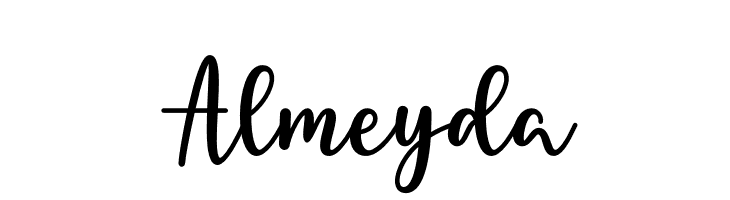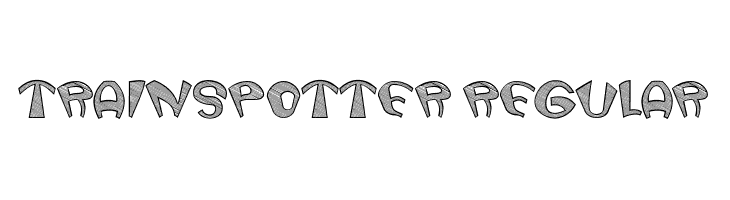
An elegant, flowing script font with graceful curves and a sophisticated style.
A modern, geometric sans-serif font with clean lines and uniform stroke widths.
An elegant and sophisticated script font with decorative flourishes.
A flowing cursive script font with elegant, interconnected letters.
A delicate, flowing handwritten font with elegant, thin strokes.
A playful, hand-drawn font with bold, outlined letters and a whimsical style.
A bold, dynamic font with a slanted, energetic style.
An elegant script font with decorative swirls and artistic flair.
A bold, modern sans-serif font with clean lines and rounded edges.
A lively, handwritten script with a modern, flowing style.